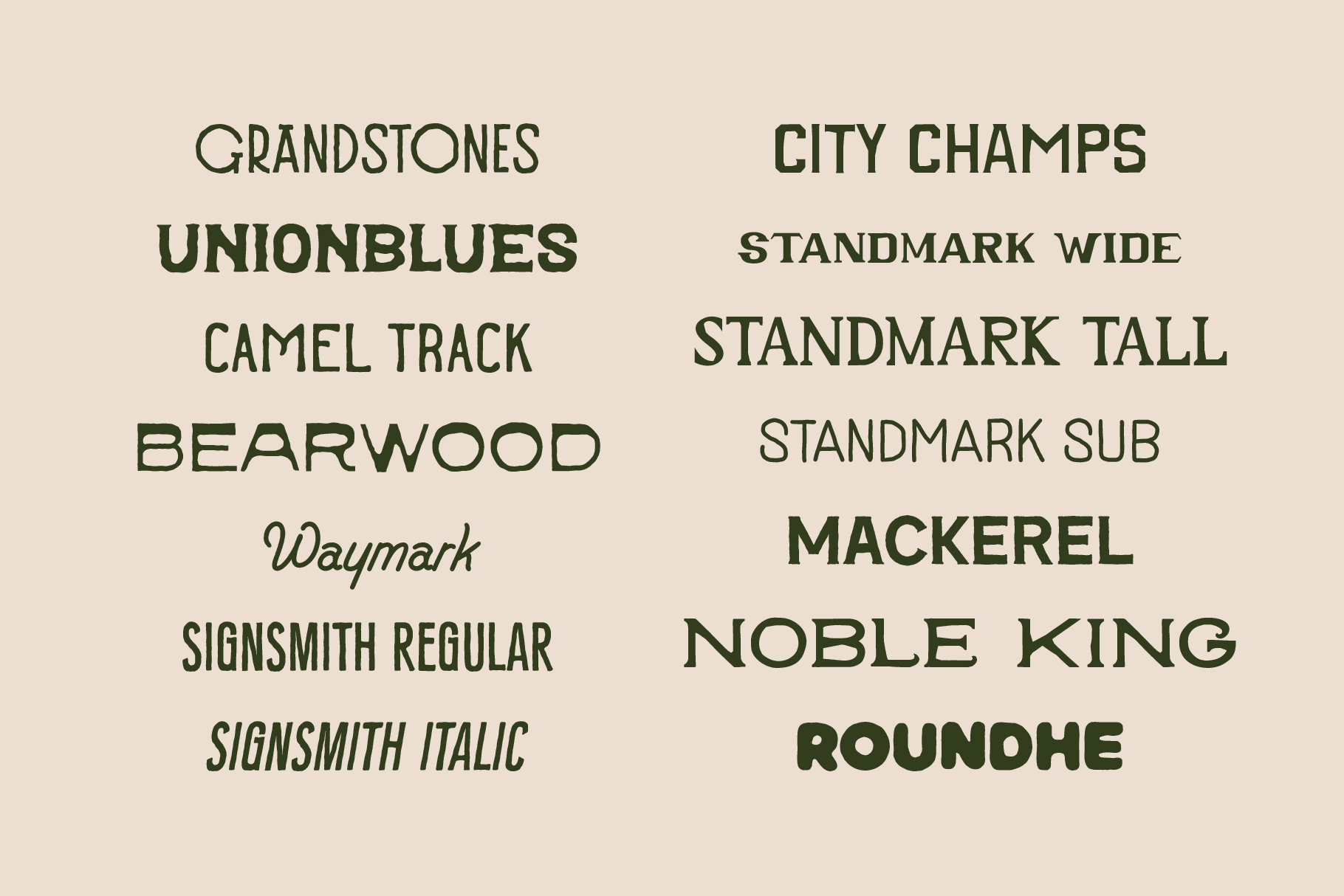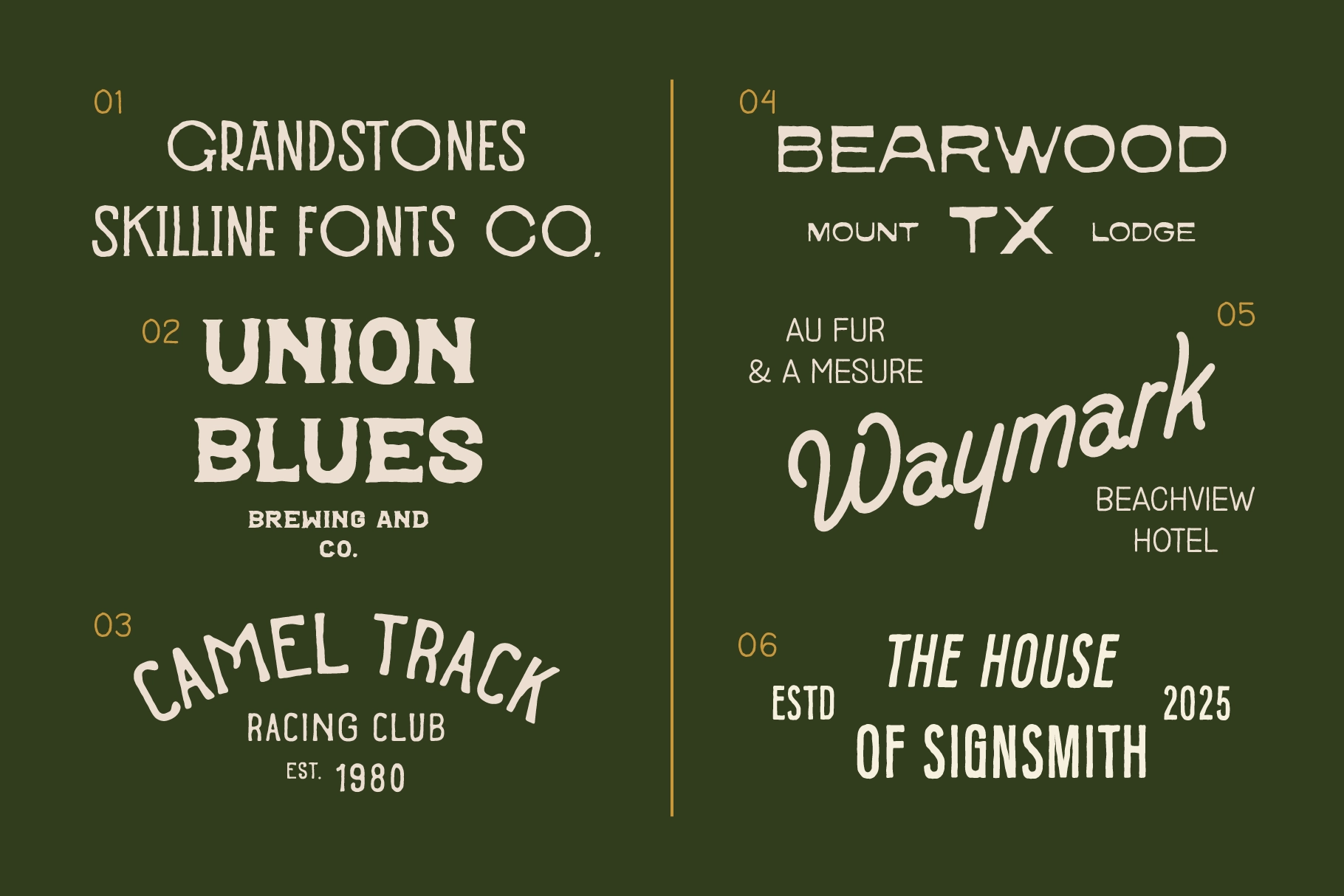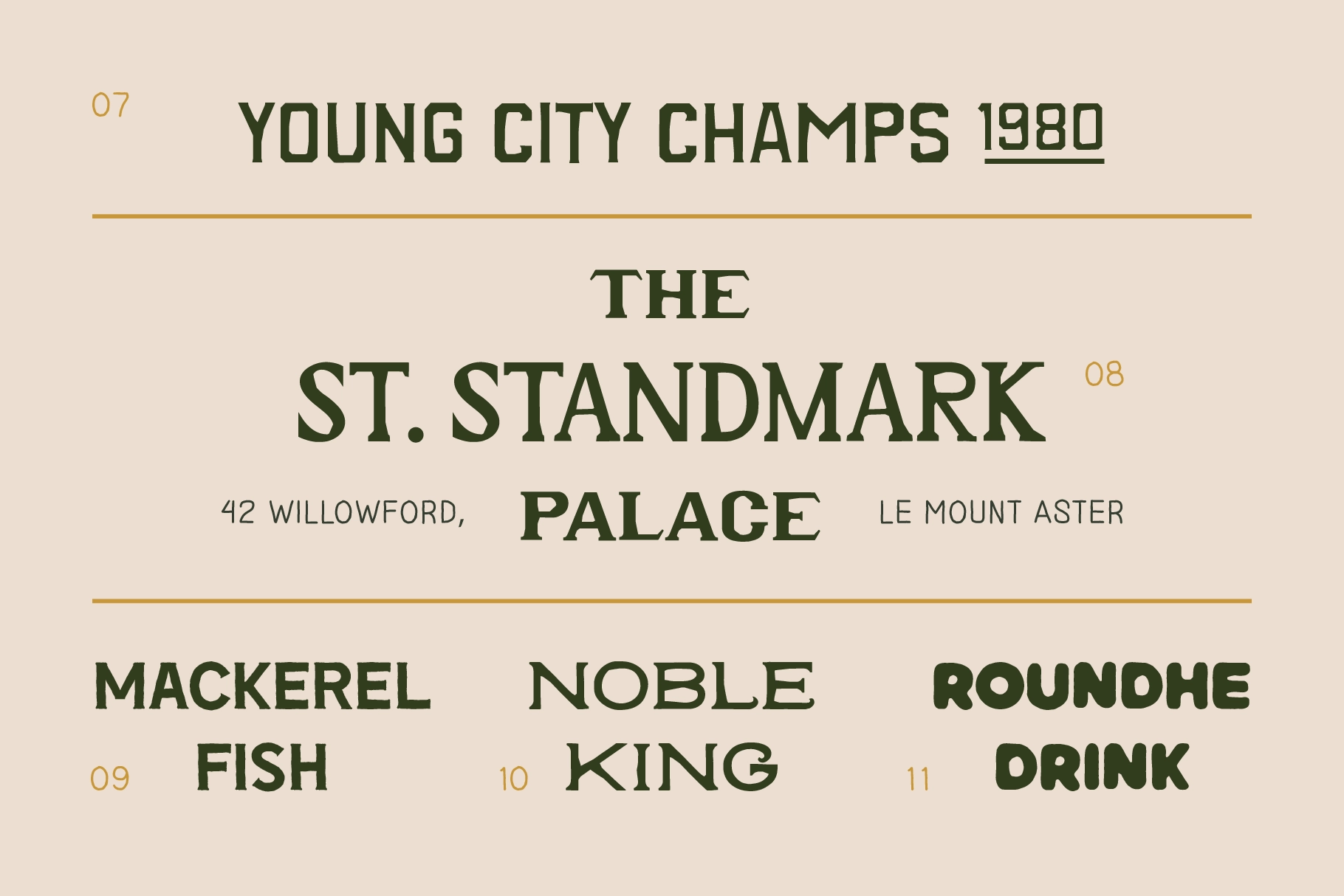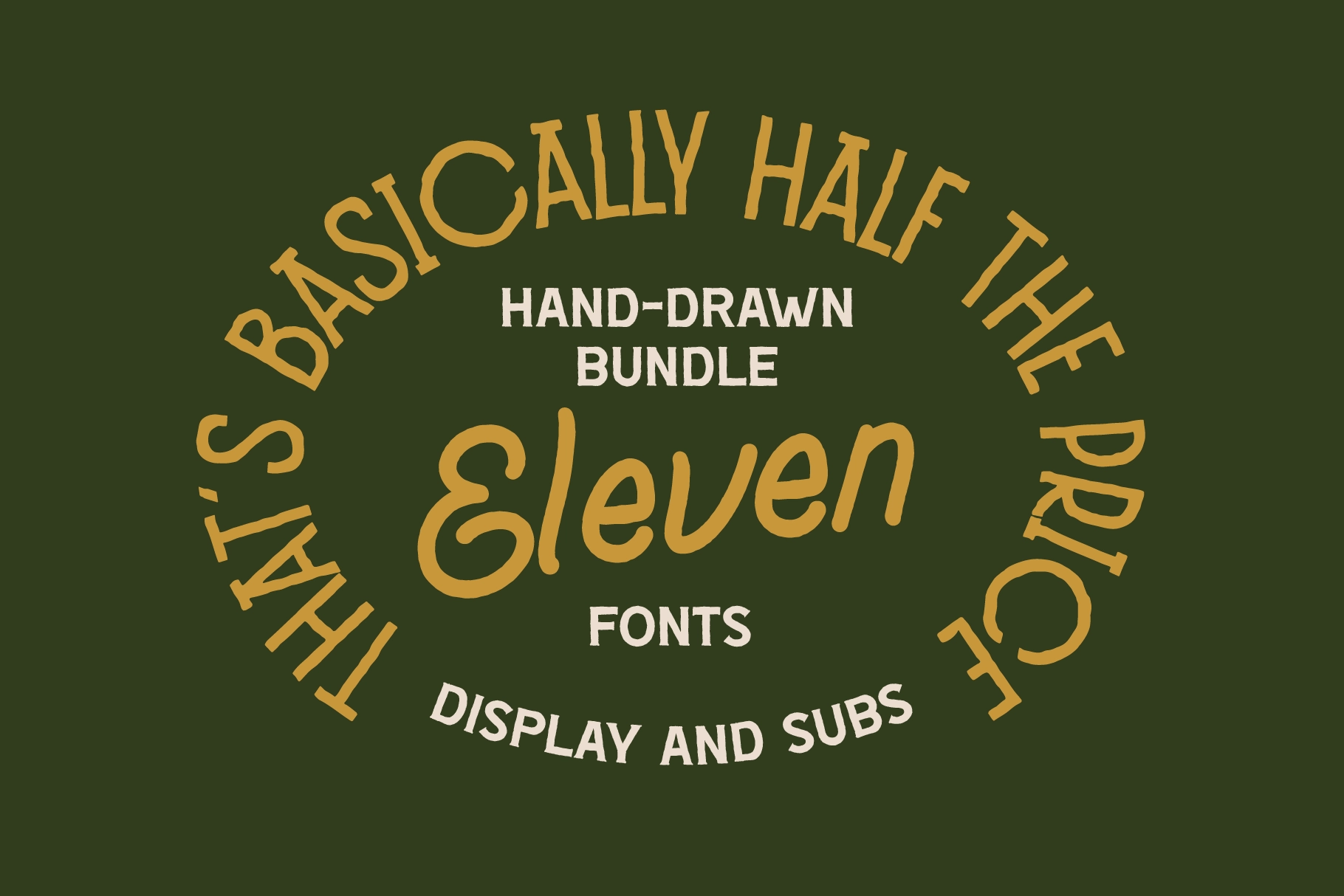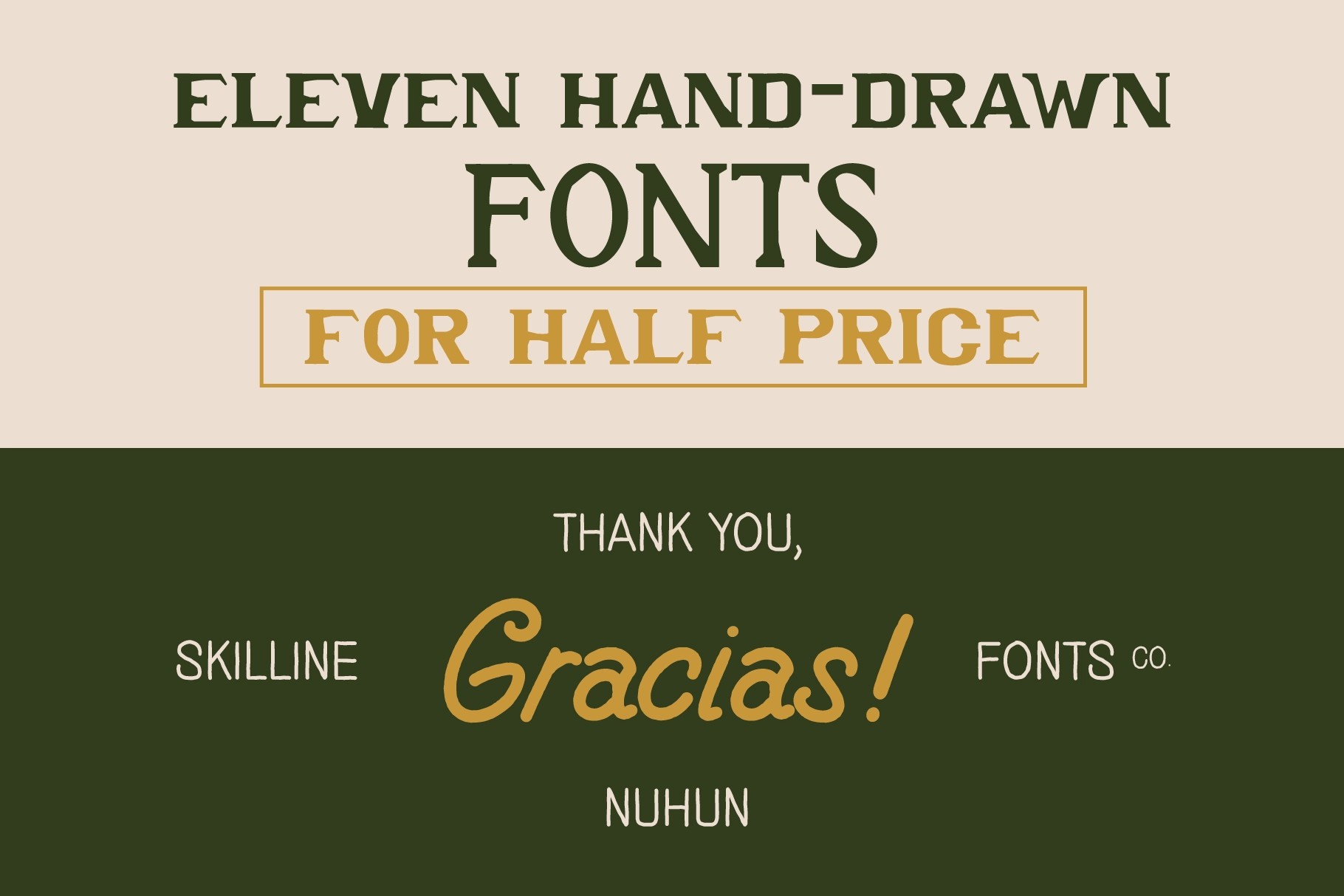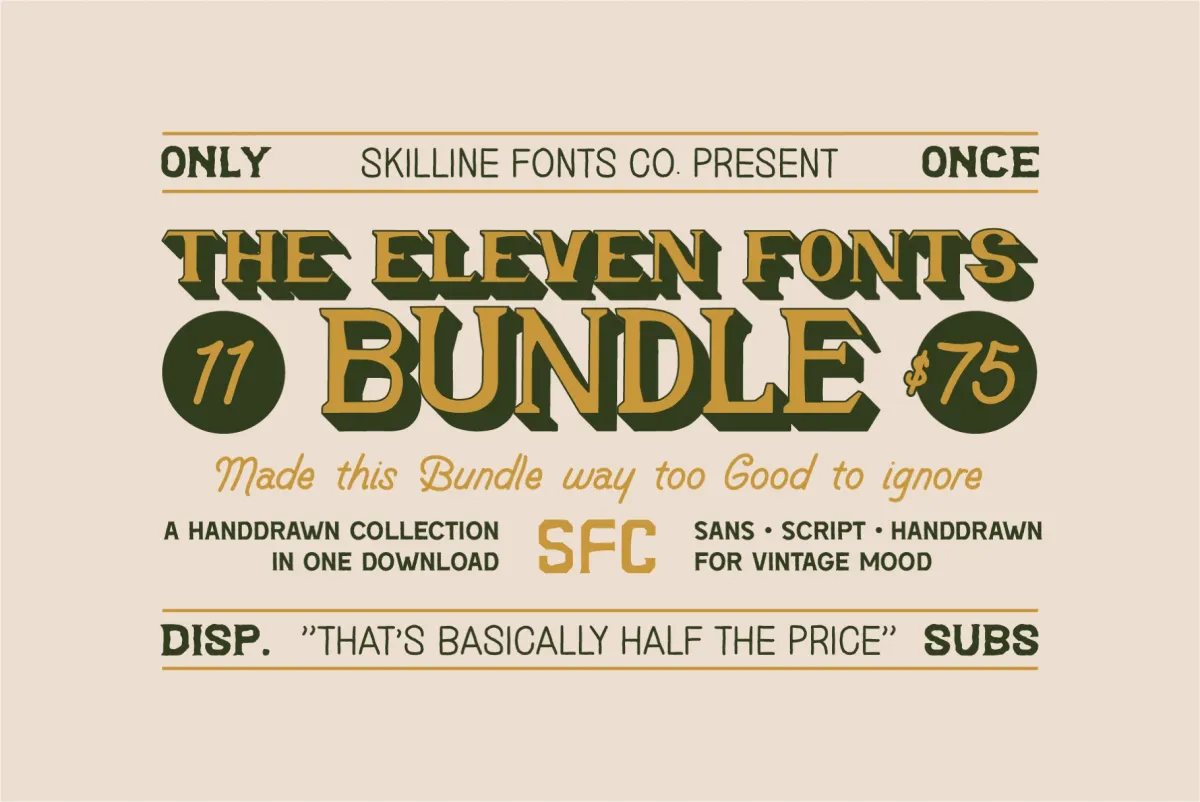
SFC Vintage Western Fonts Bundle Vol. 1
SFC Vintage Western Fonts Bundle Vol. 1 is a curated collection of 11 hand-drawn typefaces inspired by classic western signage, retro Americana, and vintage craftsmanship. Combining display, sans serif, script, and textured lettering styles, this bundle delivers a versatile toolkit for designers working with nostalgic, bold, and character-rich visuals.
Each font in the collection brings its own personality—from rugged slab-inspired forms to soft rounded scripts—making it easy to create cohesive branding, editorial layouts, packaging, and signage with a strong vintage identity. Perfect for projects that need warmth, authenticity, and timeless appeal in one complete set.